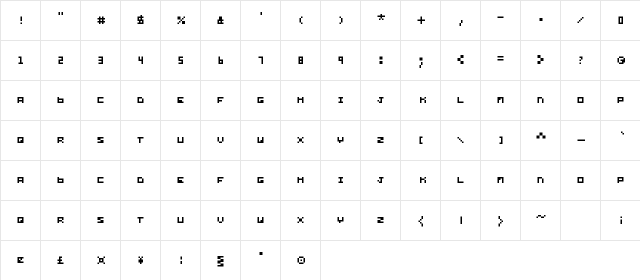
yond Medium
Design Context for yond Typeface
yond is a composed and adaptable typeface that performs quietly and consistently across a wide range of design contexts.